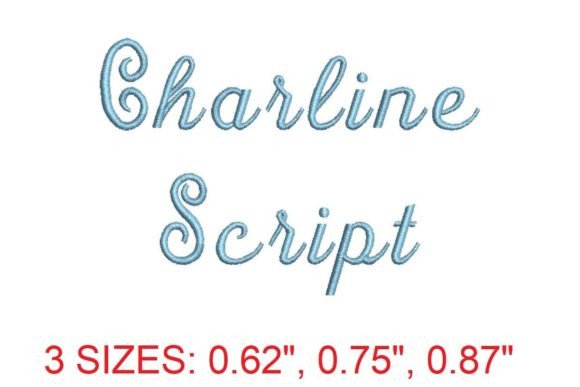
Charline Script Font: A Versatile Tool for Embroidery Enthusiasts
Whether you're a seasoned embroiderer or just starting out, the Charline Script Font can elevate your stitching projects to new levels of elegance and sophistication. This elegant script font is designed with both beauty and functionality in mind, making it an ideal choice for those looking to add a touch of refinement to their embroidery work. With its flowing lines and graceful curves, Charline Script offers a unique aesthetic that can transform simple fabric into stunning art pieces.
The Allure of Charline Script Font
Charline Script is more than just a font—it's a style statement. Its soft, cursive design evokes a sense of romance and charm, making it particularly well-suited for wedding invitations, personalized gifts, and decorative accents. The font’s fluidity allows it to adapt seamlessly to various project types, from monogrammed towels to intricate wall hangings. For those who appreciate the artistry of hand-lettering, Charline Script provides a digital alternative that maintains the same level of craftsmanship.
One of the most appealing aspects of Charline Script is its versatility. It works equally well on light and dark fabrics, and its subtle variations in stroke thickness create depth and dimension in the final embroidered piece. This makes it a favorite among designers and hobbyists alike, as it can be used across a wide range of creative applications without losing its visual appeal.
Why Choose Charline Script Font for Your Projects?
When selecting a font for embroidery, it's important to consider how well it translates from digital format to fabric. Charline Script excels in this regard, offering clear outlines and consistent spacing that make it easy to stitch accurately. The font is also designed with practicality in mind, ensuring that even beginners can achieve professional-looking results with minimal effort.
Another key advantage of Charline Script is its scalability. Whether you're working on a small monogram or a large banner, the font maintains its integrity at different sizes. This flexibility allows you to experiment with various project scales, helping you find the perfect balance between detail and visibility.
For those who value precision, Charline Script comes with detailed sizing and stitch information for each letter. Specifically, the dimensions and stitch counts for "A" and "a" are provided as a summary, giving you a clear idea of what to expect when using the font. However, for comprehensive details on all 156 letters included in the set, you can refer to the More Sewing Info PDF available on the product page. This resource ensures that you have all the necessary information to plan your embroidery projects effectively.
Enhancing Your Creative Workflow with Charline Script
Incorporating Charline Script into your creative process can streamline your workflow and inspire new ideas. The font’s elegant design encourages experimentation, allowing you to explore different textures, colors, and compositions. For example, pairing Charline Script with metallic threads can create a shimmering effect that adds a touch of luxury to your embroidery.
Additionally, the font’s adaptability means it can be used in conjunction with other design elements, such as floral motifs or geometric patterns. This versatility not only expands the possibilities for your projects but also helps you develop a unique personal style that reflects your artistic vision.
For those who enjoy customizing their embroidery, Charline Script offers the freedom to modify individual letters or entire phrases. This level of customization is ideal for creating personalized items such as name tags, table numbers, or custom labels. The ability to tailor the font to specific needs ensures that every project feels unique and meaningful.
Practical Tips for Using Charline Script Font
Conclusion
Charline Script Font is a powerful tool for anyone passionate about embroidery, whether they’re a novice or a seasoned pro. Its elegant design, practical features, and compatibility with modern embroidery technology make it an excellent choice for a wide range of projects. By understanding how to use the font effectively, you can unlock new creative possibilities and bring your ideas to life with confidence and finesse.